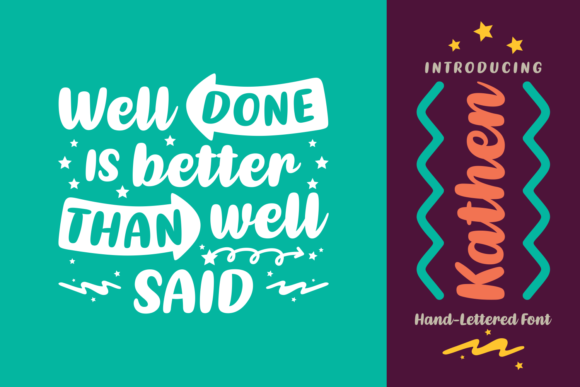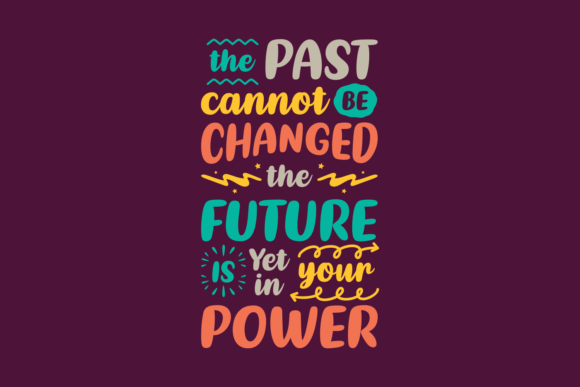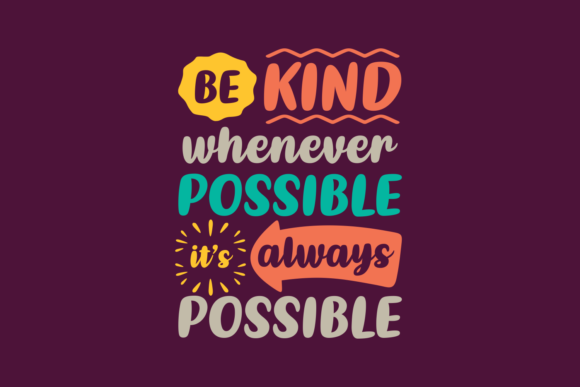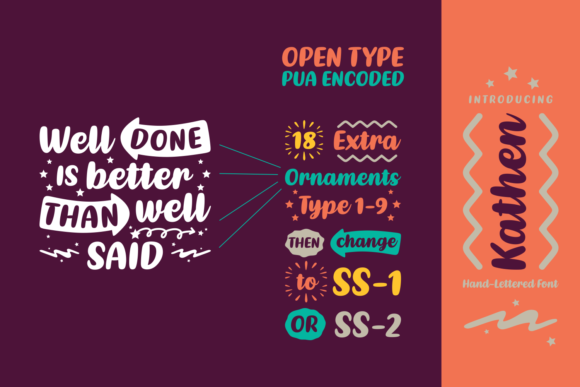
Kathen Font
About Kathen Font
Kathen is a jaw-droppingly beautiful font, handwritten and full of love! This font is perfect for creating an easy to achieve hand-lettered look in your creative projects, and works best in poppy designs.